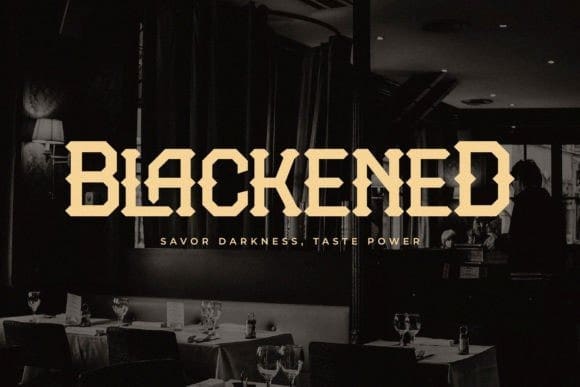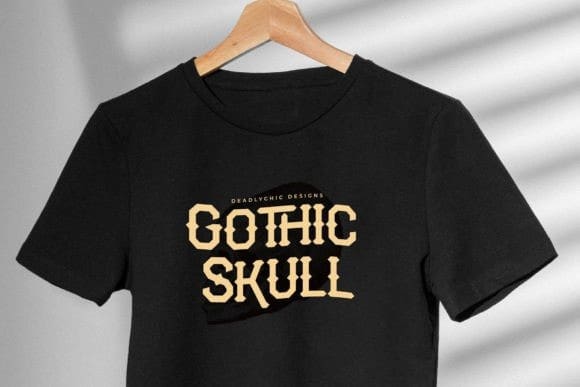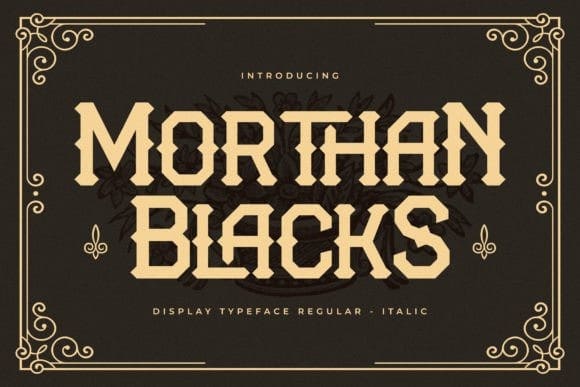
Morthan Blacks Font
Morthan Blacks Font, created by Storytype, a serif modern and classic typeface that has own unique style & modern look. This typeface is perfect for an elegant & luxury logo, book or movie title design, fashion brand, magazine, clothes, lettering, quotes, and so much more.